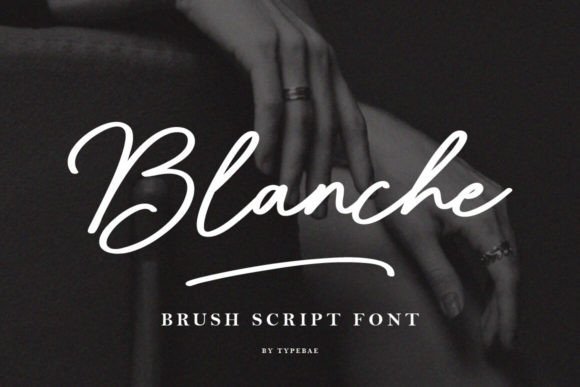
The Art of Elegant Design: Discovering Blanche Font
There’s something magical about holding a beautifully crafted wedding invitation in your hands, feeling the texture of the paper, and admiring the delicate script that transports you to a world of romance and love. It’s moments like these that remind us of the power of typography in evoking emotions and creating lasting impressions.
For designers seeking to add a touch of handwritten charm to their projects, Blanche Font is the perfect solution. This stunning handwritten brush script font is designed to exude beauty and elegance, making it ideal for creating luxurious branding materials, wedding invitations, greeting cards, and other projects that demand a touch of sophistication. With Blanche Font, designers can add a personal and unique touch to their work, setting them apart from the crowd.
Whether you’re working on a high-end branding project or a special occasion invitation, Blanche Font is a valuable asset to have in your design toolkit. Its versatility and elegance make it a must-have for any designer looking to elevate their creative game.
Blanche Font Key Features
- Unique Characteristics: Blanche Font features a unique, elegant script design with flowing connections between letters, making it perfect for creative and artistic projects.
Designer Review: Blanche Font
Overall, I’d say Blanche Font is a nice, elegant addition to any designer’s toolkit. ✨
- The high-quality font rendering and fine details make it a pleasure to work with.
- Blanche Font is highly legible, even at smaller font sizes.
- The various weights and styles make it versatile and suitable for a range of applications.
One of the things that immediately caught my attention is the beautiful, flowing feel of the font. ✨ It’s perfect for body text, titles, or any other application where you want to convey a sense of sophistication.
- While Blanche Font is highly legible, it may not be the best choice for very small or very large text sizes.
- The font may not be as effective in bold or italic weights, where the details get lost.
- Some users may find the font too elegant or ornate for certain applications.
Overall, I’d give Blanche Font 4 out of 5 stars. It’s a solid choice for designers looking for a high-quality, elegant font. However, its limitations should be taken into consideration when choosing it for your project.